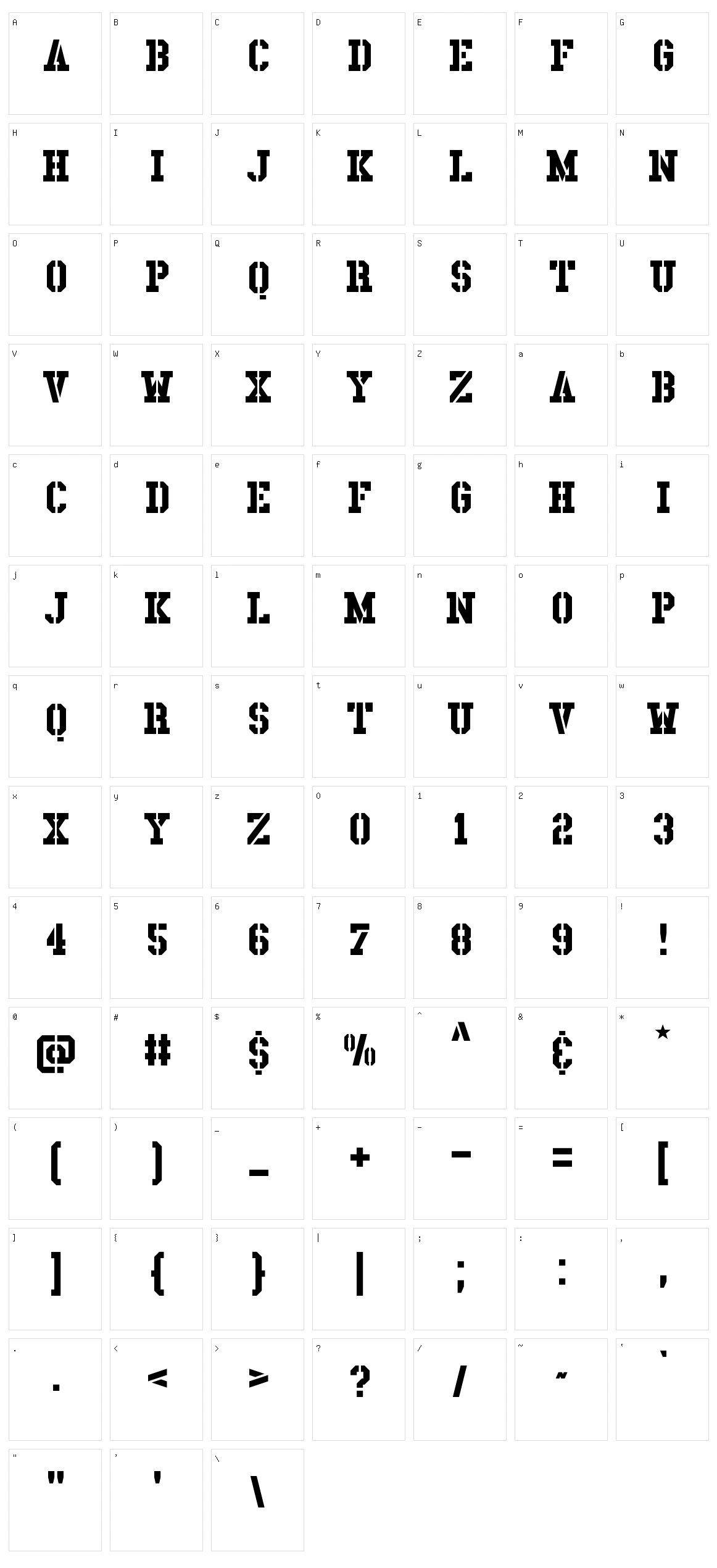
The free font Dirnaith is carefully designed by Typesgal, showcasing a thoughtful balance of creativity and usability and falls under the Stencil font style. When you download the ZIP file, it contains only 71.21 KB of font files, making it lightweight and quick to download. Please review the license details below to understand permitted usage and distribution rights. If license information is not available, we recommend using this font for personal projects only or contacting the author directly for commercial usage permissions.